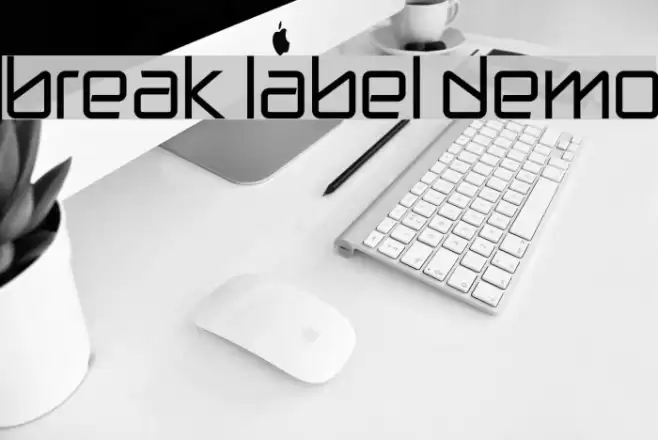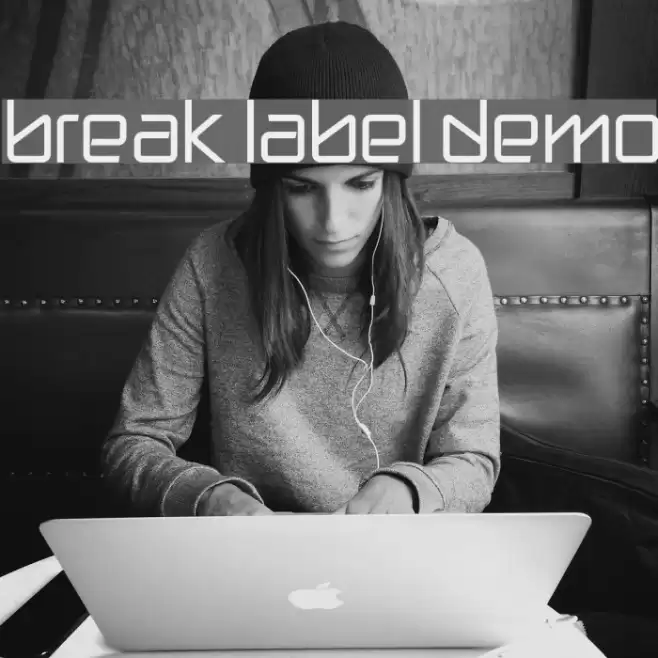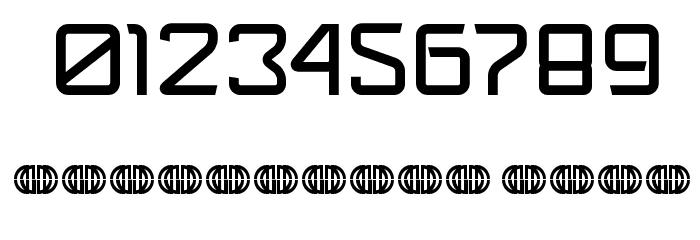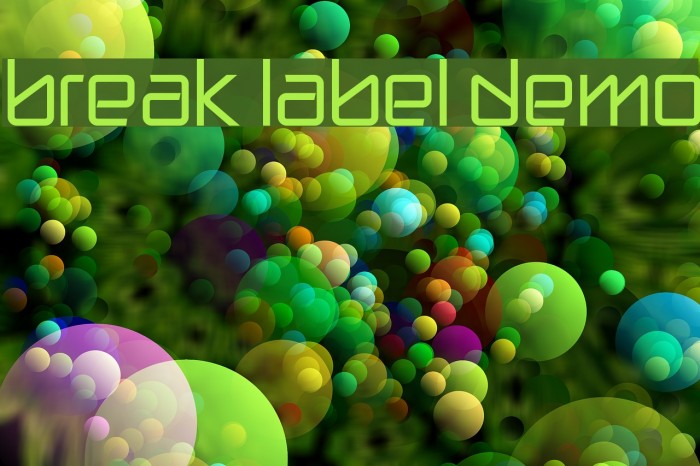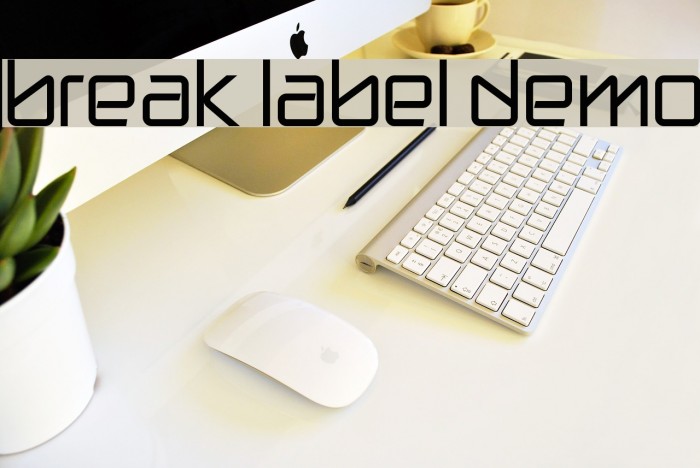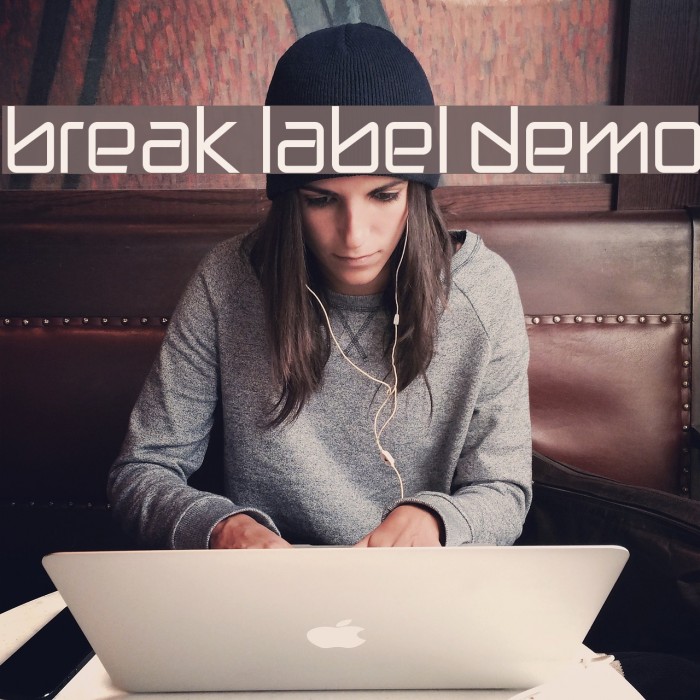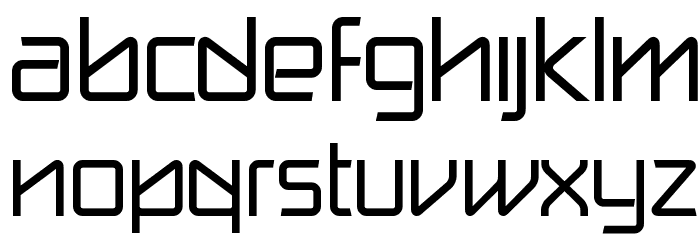
break label DEMO Font
break label DEMO Description
This font features a modern, geometric design with a distinct, futuristic appeal. The characters are constructed with clean, straight lines and sharp angles, giving it a technical and digital feel. The uppercase and lowercase letters maintain a consistent height, contributing to a uniform appearance. The numerals are equally stylized, matching the angular theme of the alphabet. The special characters are uniquely designed, incorporating the same geometric elements. This font is ideal for projects that require a contemporary and innovative look, such as technology branding, digital interfaces, or sci-fi themed designs.
A modern, geometric font with a futuristic and digital aesthetic from Uncategorized fonts.
- Proposed Projects: Ideal for technology branding, digital interfaces, sci-fi themed designs, and modern advertising.
- Use Case: Logos, Headlines, Digital Interfaces